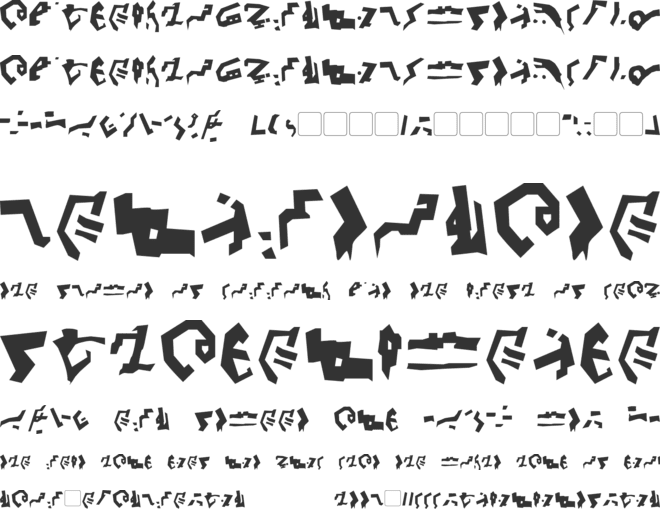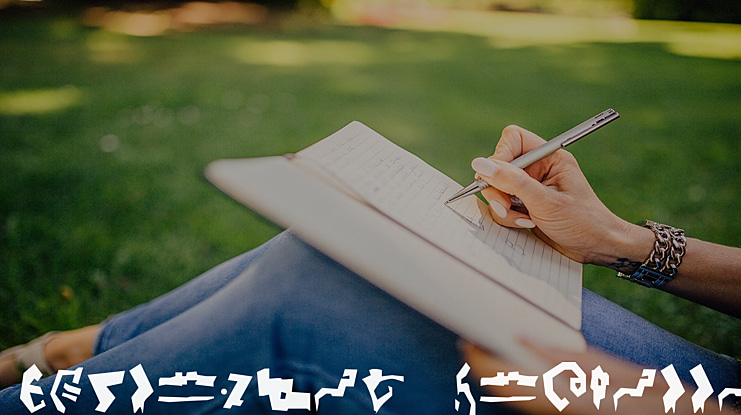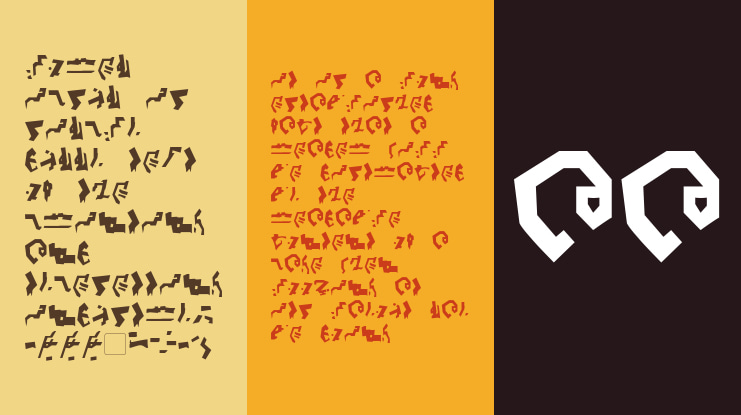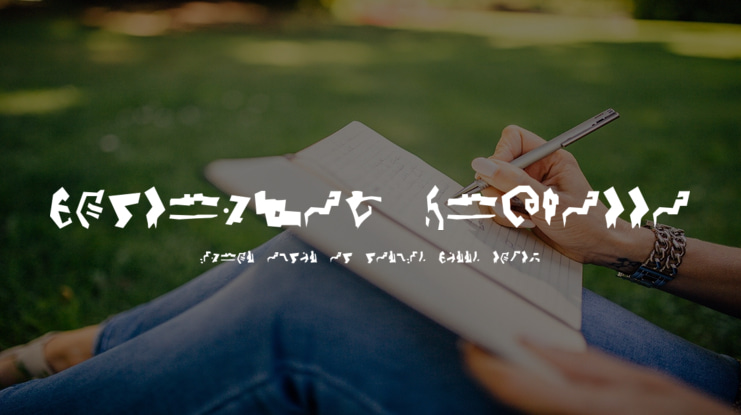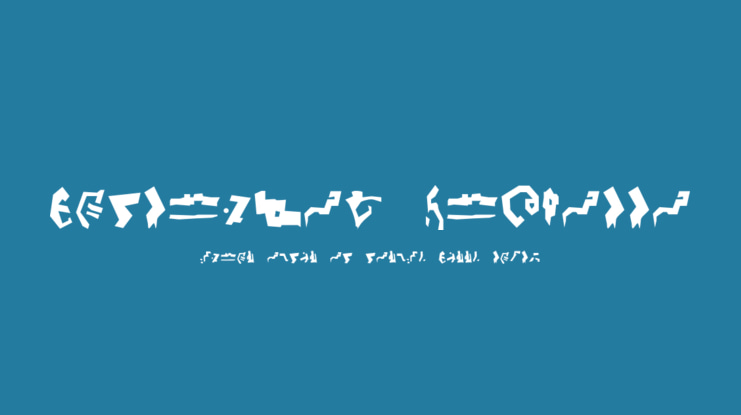
Destronic Grafitti Font
This is a revised version of Jim Sorenson's "Decepticon Grafitti" typeface, which is based on the vandalism-based writings of Runabout and Runamuck from the classic Marvel Transformers comic series. Includes full alphabet and some punctuation.